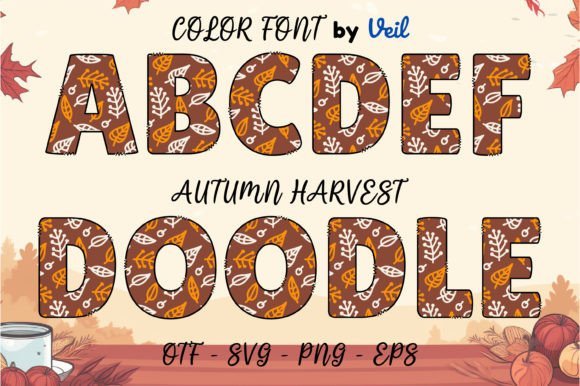
Embracing the Spirit of Autumn with the Perfect Font
As the leaves start to change colors and the air grows crisper, creatives everywhere can’t help but feel a sense of excitement and inspiration. There’s something about the cozy atmosphere of autumn that sparks our imagination and pushes us to create something truly special. And what better way to capture that essence than with the perfect font?
Enter the Autumn Harvest Font, a fun and bright color font designed to add a pop of personality to your creative projects. With its warm and inviting feel, this font is perfect for designers looking to add a touch of autumnal magic to their work. Whether you’re designing a seasonal brochure, a festive social media campaign, or a cozy recipe book, the Autumn Harvest Font is sure to bring your vision to life.
Autumn Harvest Font Key Features
- Font Family: Autumn Harvest
- Unique Characteristics: Ornate, hand-drawn design with intricate details, perfect for creating a warm and inviting atmosphere in designs, such as invitations, menus, and holiday cards.
Designer Review: Autumn Harvest Font
Overall, I think the Autumn Harvest font has a lot of potential, but it also has some limitations that prevent it from being a top choice for designers.
- ✨ The font’s unique, hand-crafted feel is a great asset for designers looking to add some personality to their projects.
- ✨ The font’s bold and italic weights are well-designed and add to its versatility.
- ✨ The font’s kerning and spacing are generally well-done, although there are a few instances where it could be improved.
- ⚠️ The font’s legibility can be a bit of a challenge, especially at smaller font sizes.
- ⚠️ Some characters, such as the lowercase “a” and “e”, can be difficult to read due to their unusual design.
- ⚠️ The font’s character set is somewhat limited, which may make it less suitable for projects that require a wide range of special characters.
I think the Autumn Harvest font is a good choice for designers who want to add some unique flair to their projects, but it may not be the best choice for those who prioritize legibility or have a need for a wide range of special characters. With a bit of tweaking and refinement, I think this font could be even more effective.
The Autumn Harvest Font is perfect for fall-themed designs, such as invitations, posters, and social media graphics. It’s also great for rustic or vintage-inspired designs, like wedding invitations, menus, and packaging labels. To get the most out of the font, experiment with different font sizes, colors, and styles to create a unique and eye-catching design.